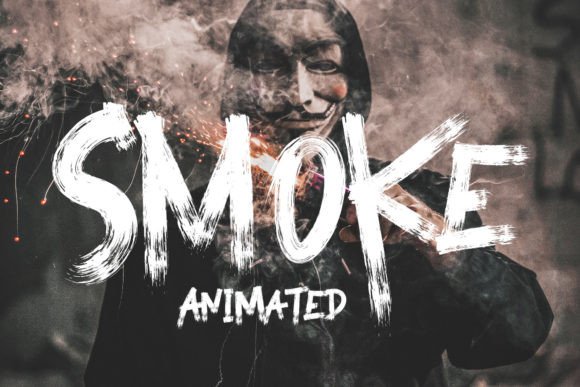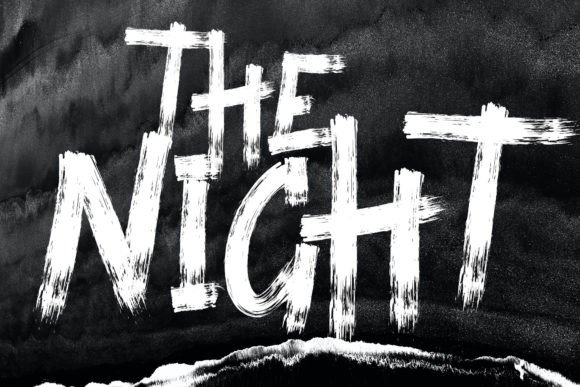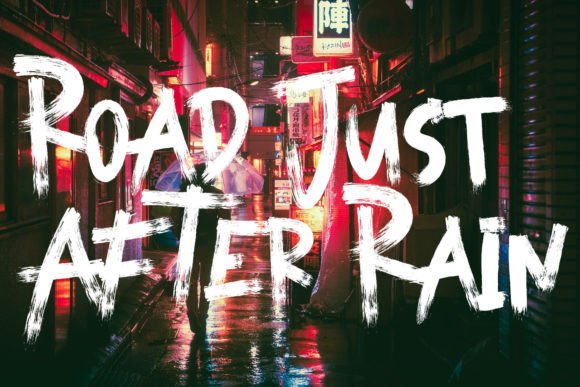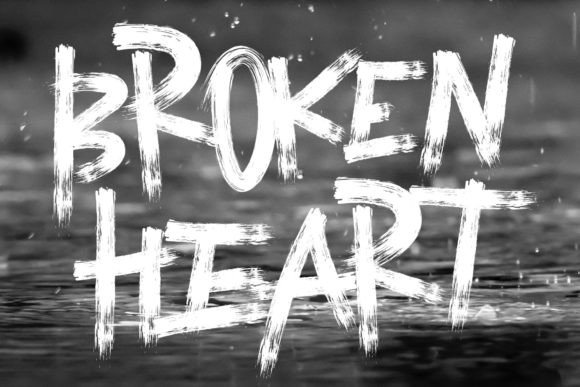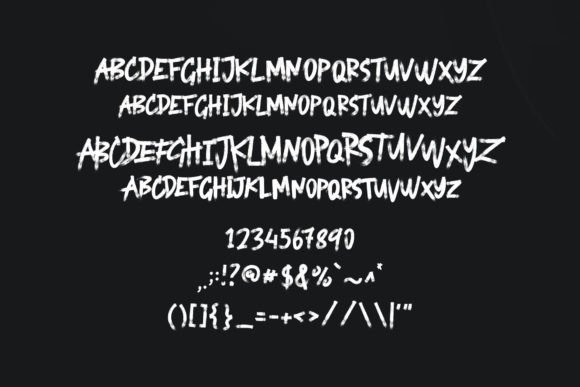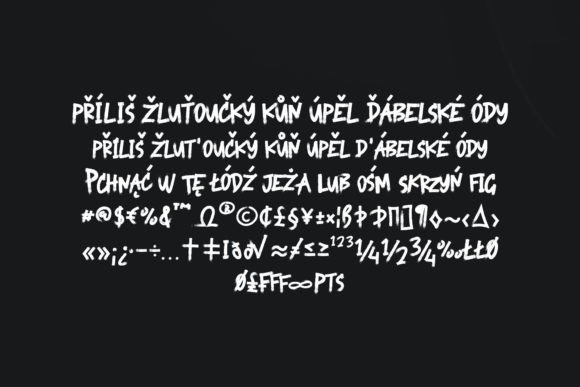
Unleash Your Creativity with Drunken Font: A Modern Brushed Display Font
Are you tired of using the same old fonts in your design projects? Do you want to add a touch of boldness and uniqueness to your work? Look no further than Drunken Font, a rough textured and modern brushed display font that’s sure to elevate your designs to the next level. In this article, we’ll take a closer look at Drunken Font, its features, and how you can use it to add a creative twist to your projects.
What is Drunken Font?
Drunken Font is a modern brushed display font that’s designed to add a touch of boldness and edginess to your designs. Its rough textured look gives it a unique and eye-catching appearance that’s perfect for projects that require a display touch. Despite its bold look, Drunken Font is simple and easy to read, making it versatile enough to use in a variety of design projects.
Key Features of Drunken Font
So, what makes Drunken Font stand out from other fonts? Here are some of its key features:
- Rough Textured Look: Drunken Font has a rough textured look that gives it a unique and eye-catching appearance.
- Modern Brushed Display Font: Drunken Font is a modern brushed display font that’s perfect for projects that require a display touch.
- Simple but Bold: Despite its bold look, Drunken Font is simple and easy to read, making it versatile enough to use in a variety of design projects.
- PUA Encoded: Drunken Font is PUA encoded, which means you can access all of the glyphs and swashes with ease.
PUA (Private Use Area) encoding is a way of encoding fonts that allows designers to access additional glyphs and swashes that are not available in standard fonts. With PUA encoding, you can access a wide range of glyphs and swashes, giving you more creative freedom and flexibility when working with fonts.
How to Use Drunken Font in Your Design Projects
Drunken Font is a versatile font that can be used in a variety of design projects, including:
- Logos and Branding: Drunken Font is perfect for creating bold and eye-catching logos and branding materials.
- Posters and Flyers: Drunken Font is great for creating posters and flyers that require a display touch.
- Social Media Graphics: Drunken Font can be used to create eye-catching social media graphics that stand out from the crowd.
- Packaging Design: Drunken Font can be used in packaging design to add a touch of boldness and edginess to your products.
Tips for Using Drunken Font Effectively
Here are some tips for using Drunken Font effectively in your design projects:
- Use it Sparingly: Drunken Font is a bold font, so use it sparingly to avoid overwhelming your design.
- Pair it with Other Fonts: Drunken Font can be paired with other fonts to create a unique and interesting contrast.
- Experiment with Different Sizes and Colors: Drunken Font can be used in a variety of sizes and colors, so experiment with different options to find the one that works best for your design.
| Font Name | Drunken Font |
| Author | FontCastle |
Drunken Font is a modern brushed display font that’s perfect for designers and crafters who want to add a touch of boldness and edginess to their designs. With its rough textured look and PUA encoding, Drunken Font offers a wide range of creative possibilities. Whether you’re creating logos and branding materials, posters and flyers, or social media graphics, Drunken Font is a versatile font that can help you stand out from the crowd.